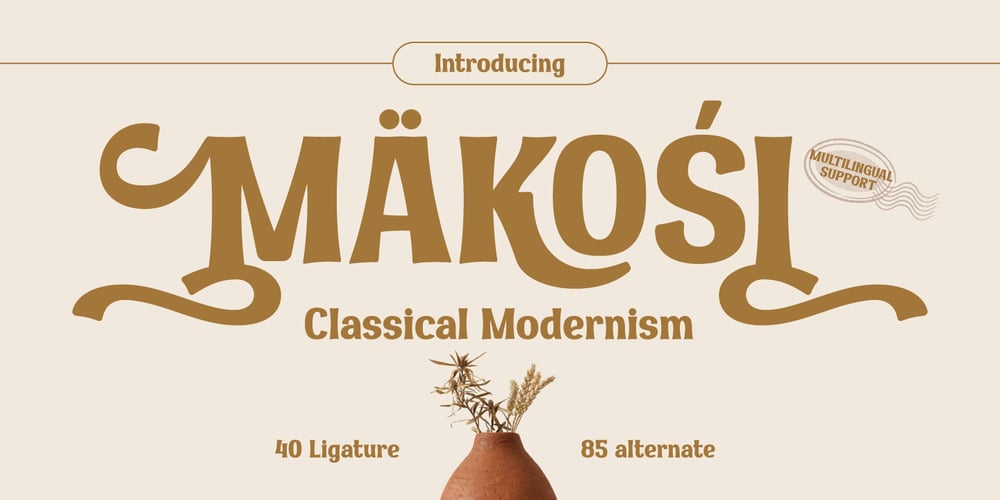
Makosi
Makosi font
Makosi Font Family was designed by Rozikan and published by Twinletter. Makosi contains 1 styles and family package options. Makosi is a traditional serif typeface that is ideal for classic or retro modernist applications. With a graceful and elegant design, this typeface adds a distinctive touch to any text composition.Makosi includes unusual features such as ligatures and alternatives, which provide flexibility and provide intriguing variations in text appearance. As a result, you’ll be able to effortlessly adjust the style and feel you want for each of your creative projects. Furthermore, Makosi is multilingual, allowing you to utilize this typeface in a variety of languages all around the world. You may reach a worldwide audience while also providing a consistent and appealing visual experience.You will develop an eye-catching design with a distinctive classic touch if you use Makosi as the main font for your project. Join Makosi and give your distinctive typography a new depth.What’s Included :- File font- All glyphs Iso Latin 1- Alternate, Ligature- Simple installations- We highly recommend using a program that supports OpenType features and Glyphs panels like many Adobe apps and Corel Draw so that you can see and access all Glyph variations.- PUA Encoded Characters – Fully accessible without additional design software.- Fonts include Multilingual support